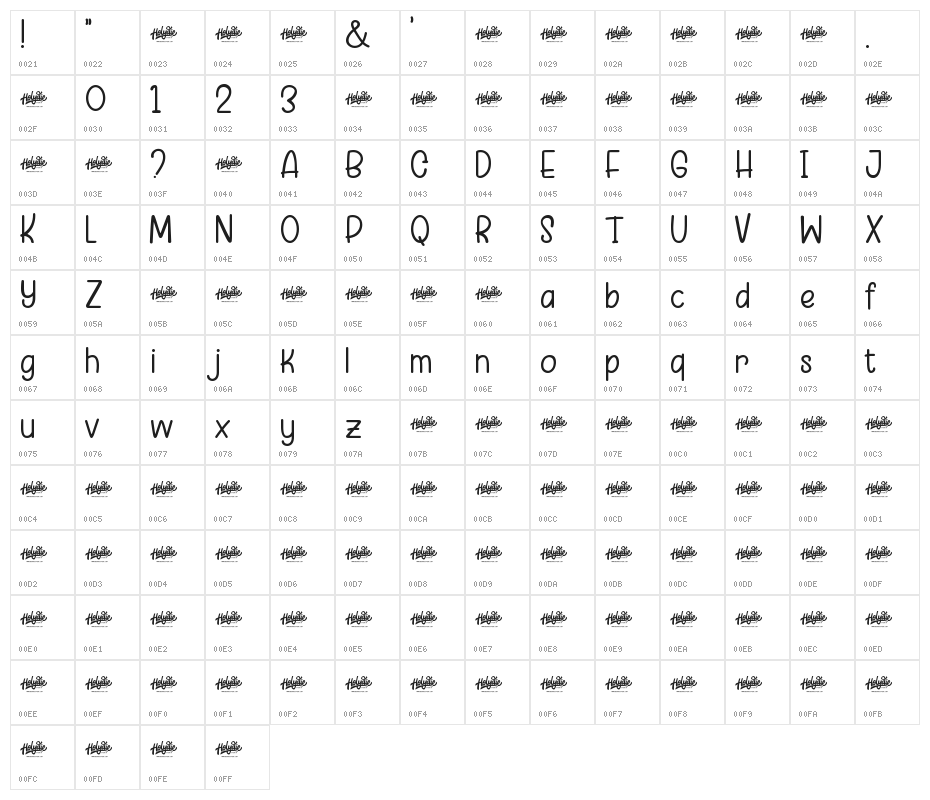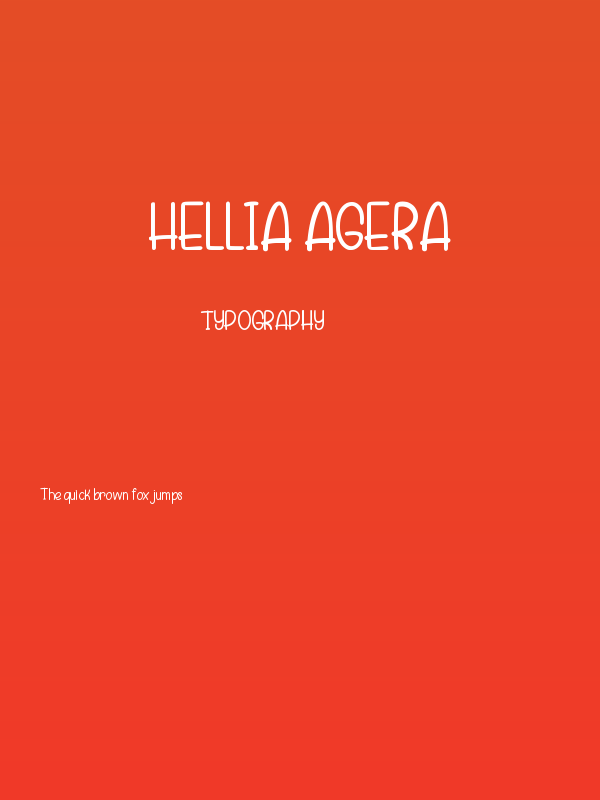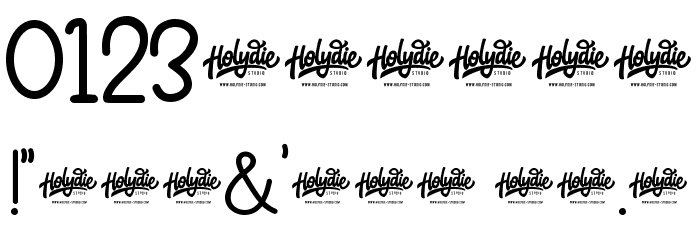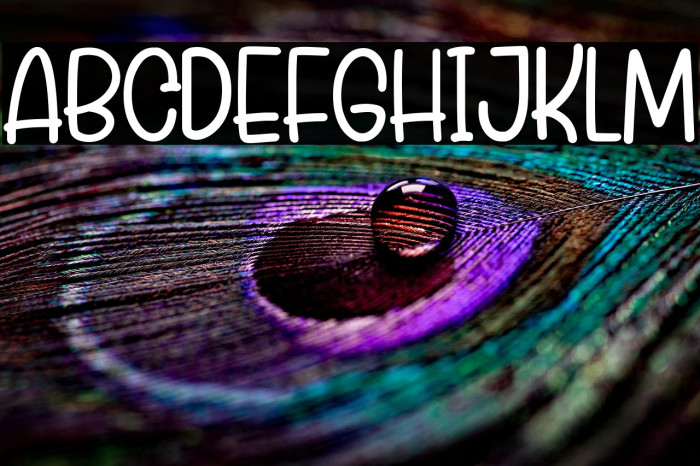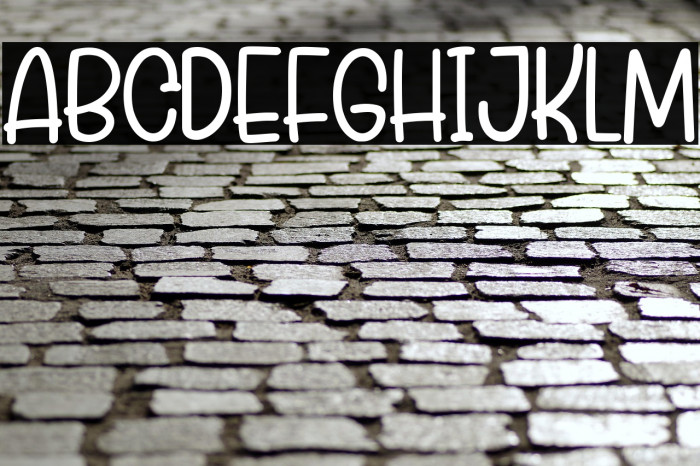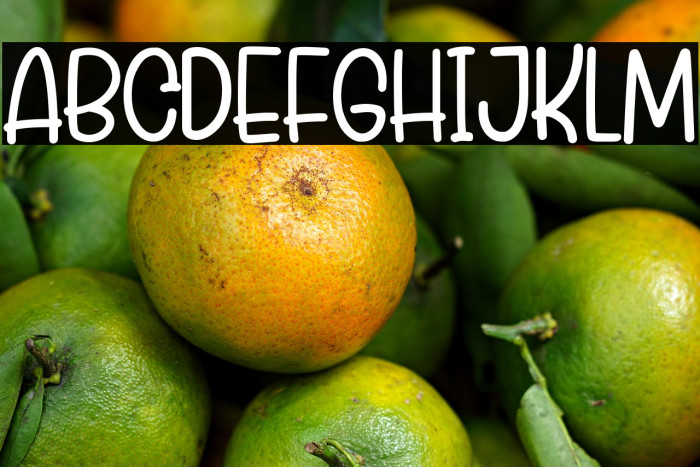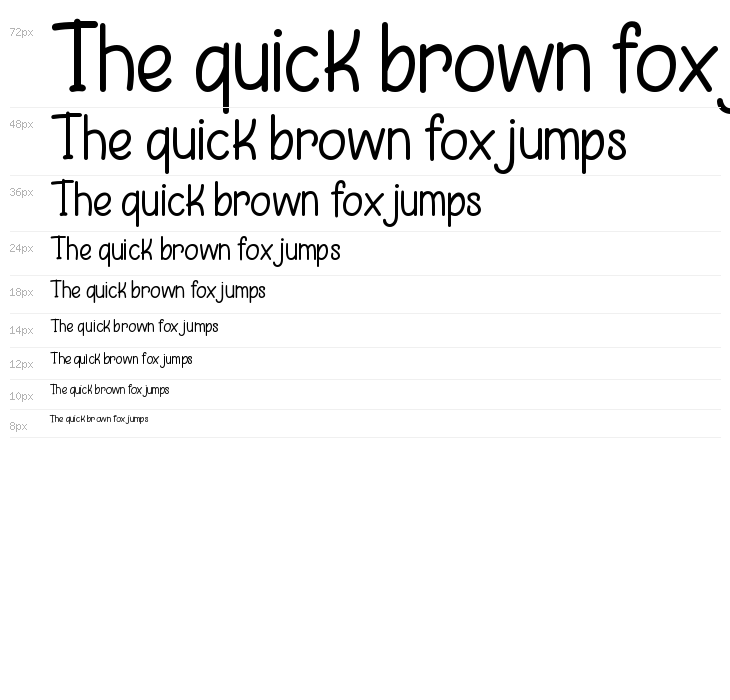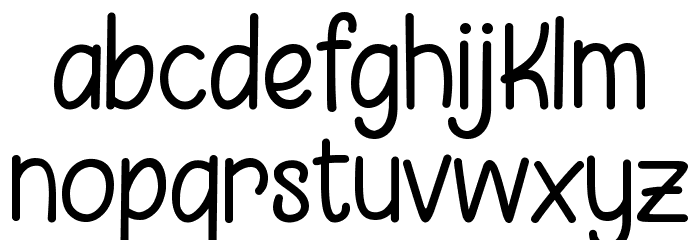
Hellia Agera Font
Hellia Agera Description
This font features a playful and rounded design, characterized by its smooth curves and friendly appearance. The letters are evenly spaced, with a consistent stroke width that gives it a clean and approachable look. The uppercase letters are bold and prominent, while the lowercase letters maintain a harmonious balance with a slightly whimsical touch. The numbers are clear and legible, matching the overall style of the alphabet. Special characters are included, maintaining the same rounded and inviting aesthetic. This font is versatile, suitable for a variety of creative projects that require a touch of personality and warmth.
| Use Case | Headlines, Logos, Casual Text |
| Proposed Projects | Ideal for children's books, playful branding, greeting cards, and casual invitations. |